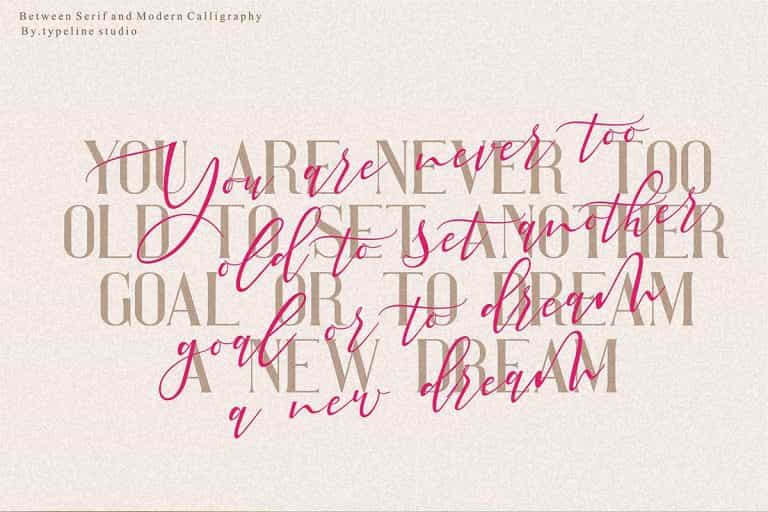
Discover Pretty Woman Font Duo, part of the Calligraphy Handwritten collection—a versatile and unique font perfect for adding a personal touch to your projects. Download it for free and enjoy crafting designs with style, from invitations to social media posts. This font is available exclusively for personal use, giving you the freedom to create without limits. Unlock your creativity with Pretty Woman Font Duo today!
Introducing Pretty Woman with a smiling, pretty woman typeface with a classic style that is simple and elegant. Pretty Woman’s classic style is perfect for branding, wedding invitations, quotes, headlines, and more